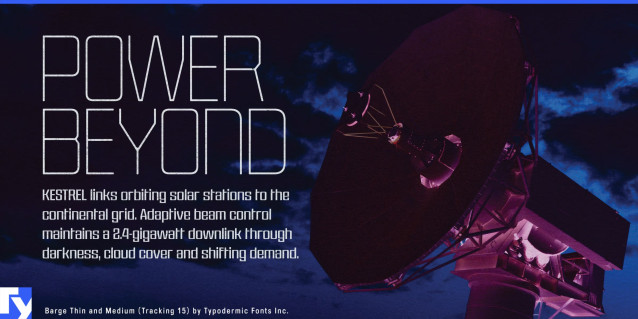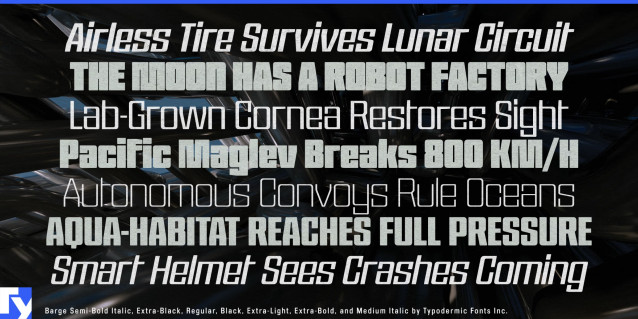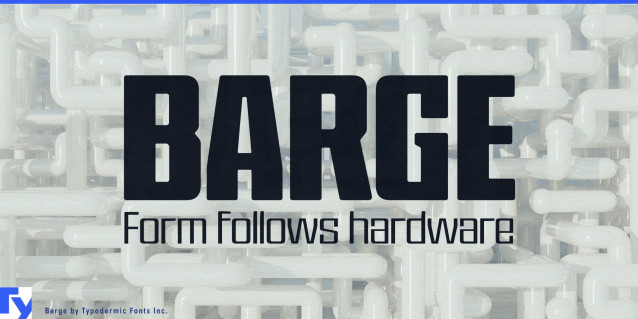
Barge Font Family
A machine can be designed down to its last bevel, housing and fastener, then labeled with typography that seems to have arrived from somewhere else. Barge was created to close that gap. Its compact proportions, chamfered construction and sturdy rhythm allow the lettering to share the visual language of the object beneath it. The result feels less like a name placed on a machine and more like part of the machine’s design.
Barge draws on general industrial-design cues rather than one historical lettering source. Its forms recall shaped panels, reinforced corners, cast housings and components built to occupy limited space. The narrow stance gives long manufacturer names and model designations room to fit, while the squared details keep them visually substantial. Where wide, streamlined lettering tends to suggest luxury or effortless speed, Barge feels concentrated, structural and built to take a knock.